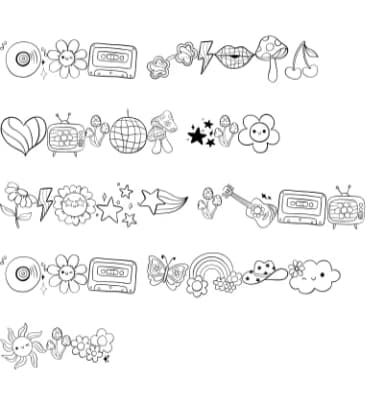
This font radiates pure 1970s energy with its playful, hand-sketched character. Groovy Retro, designed by Sirinart, is a dingbats collection brimming with recognizable icons straight from that era: flowers, mushrooms, butterflies, peace signs, suns, and other retro symbols that instantly evoke that groovy aesthetic most designers spend hours trying to recreate from scratch.
What sets this apart is the authentic sketch quality built into every single character. Each icon feels genuinely hand-drawn and personal rather than digitally perfect, and that imperfect charm is exactly what certain projects desperately need. Use it for retro sticker sheets, vintage concert poster designs, boho wedding invitation sets, and 70s-themed event graphics. The character set gives you plenty of graphic elements to combine and layer, so you're not limited to single-icon use. Musicians creating vintage album artwork benefit from this authenticity, while craft enthusiasts designing DIY decorations find exactly what they need without hunting through multiple separate packs.
Pair Groovy Retro with a clean, modern sans-serif for body text to keep designs readable while the dingbats become the visual anchor. It's available on Creative Fabrica, ready to add analog warmth and character to your next project.
Groovy Retro Font is a versatile dingbats font that works for both headings and body text. Pair it with a contrasting sans-serif or serif font to add visual interest and a clear distinction between titles and body copy.